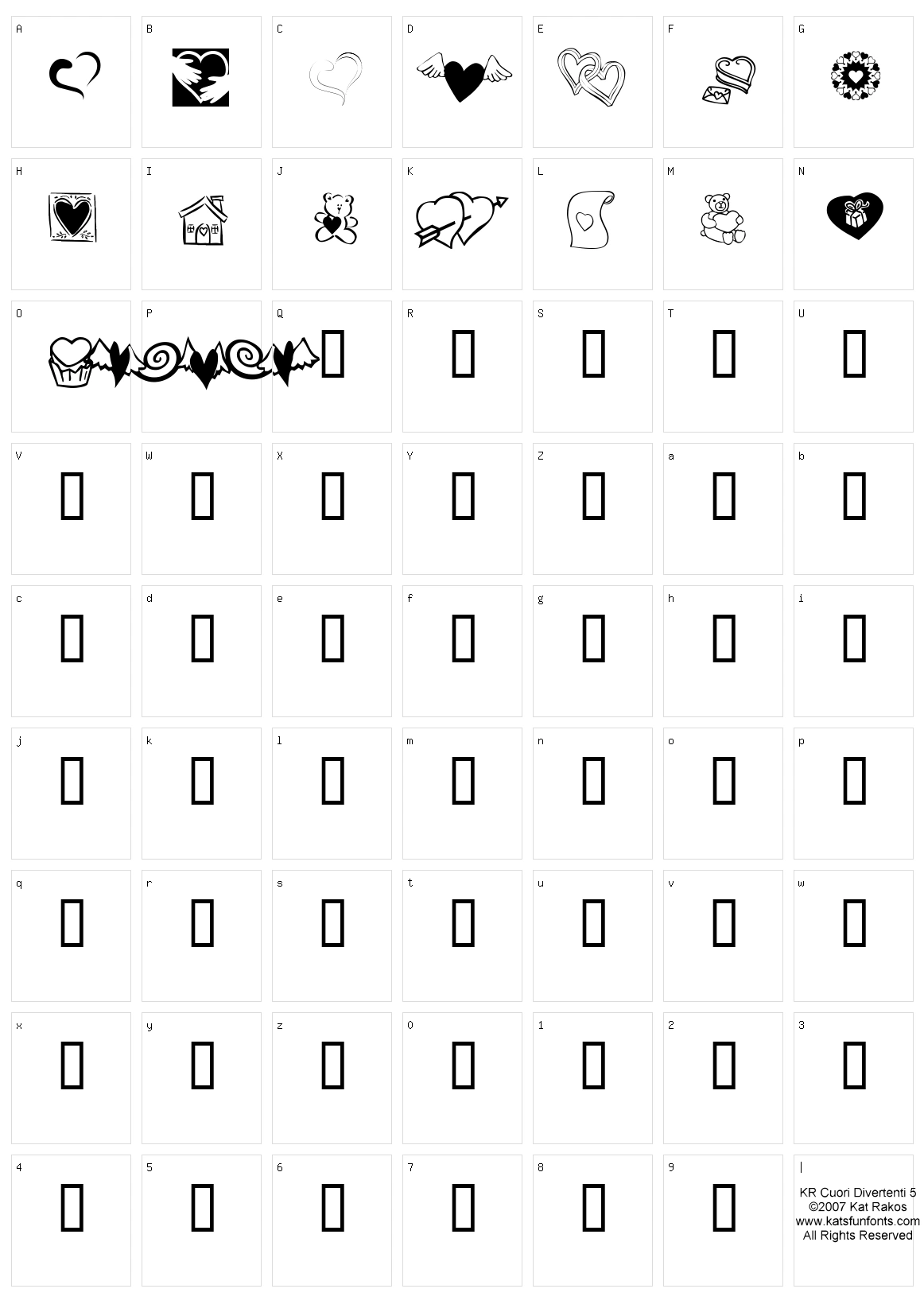
The free font KR Cuori Divertenti 5 is carefully designed by Kat's Fun Fonts, showcasing a thoughtful balance of creativity and usability and falls under the Valentine font style. When you download the ZIP file, it contains only 16.61 KB of font files, making it lightweight and quick to download. Please review the license details below to understand permitted usage and distribution rights. If license information is not available, we recommend using this font for personal projects only or contacting the author directly for commercial usage permissions.